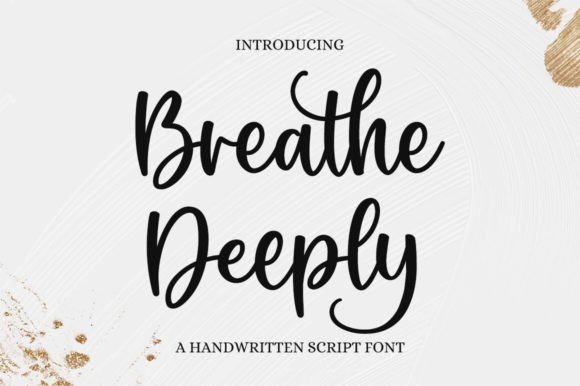
Discover the Elegance of Breathe Deeply Font
Have you ever found yourself scribbling down a heartfelt message in a worn-out notebook, only to realize that the perfect font was missing? That’s where Breathe Deeply Font comes in – a delicate and refined script font that captures the essence of sophistication and elegance. Whether you’re a seasoned designer or a creative enthusiast, this versatile font is sure to leave a lasting impression on your audience.
Breathe Deeply Font is the perfect companion for designers looking to elevate their work. With its incredibly versatile style, you can use it to create gorgeous wedding invitations, beautiful stationery art, eye-catching social media posts, and much more! The value of this font lies in its ability to convey a sense of refinement and poise, making it an invaluable addition to any design project.
Breathe Deeply Font Key Features
- Font Family: Breathe Deeply Font is a unique, high-quality font designed to evoke a sense of calmness and serenity.
- Unique Characteristics: Breathe Deeply Font features a distinctive, hand-drawn style with subtle texture and organic elements, giving it a natural and soothing feel.
- Font Pairing: Designed to pair well with a wide range of fonts, making it an excellent choice for creating harmonious and balanced typography.
Breathe Deeply Font Review
Overall, I found the Breathe Deeply Font to be an interesting addition to the world of typography. ✨ Its unique blend of modern and handwritten elements makes it stand out from more traditional fonts.
Here are some things that I think work well:
- ✨ The font’s dynamic feel is perfect for adding a touch of personality to headings and titles.
- ✨ The varying letterforms create a sense of movement and energy, making it well-suited for designs that need to convey a sense of dynamism.
- ✨ The font’s legibility is surprisingly good, considering its unconventional design.
However, I also encountered some limitations:
- ⚠️ The font may be too distracting for large blocks of text, as its unique elements can be overwhelming when used extensively.
- ⚠️ The font’s consistency can be inconsistent, with some letters feeling more rough-hewn than others.
Overall, I would say that the Breathe Deeply Font is a solid choice for designers looking to add some visual interest to their work. While it may not be suitable for every project, it’s a great option for those who want to create something unique and eye-catching.
Tips for Getting the Most Out of Breathe Deeply Font
To get the most out of Breathe Deeply Font, try the following:
- Use it for titles and headings to add a touch of elegance.
- Combine it with other fonts to create a unique and eye-catching design.
- Experiment with different font sizes and colors to achieve the desired effect.
Breathe Deeply Font is perfect for: